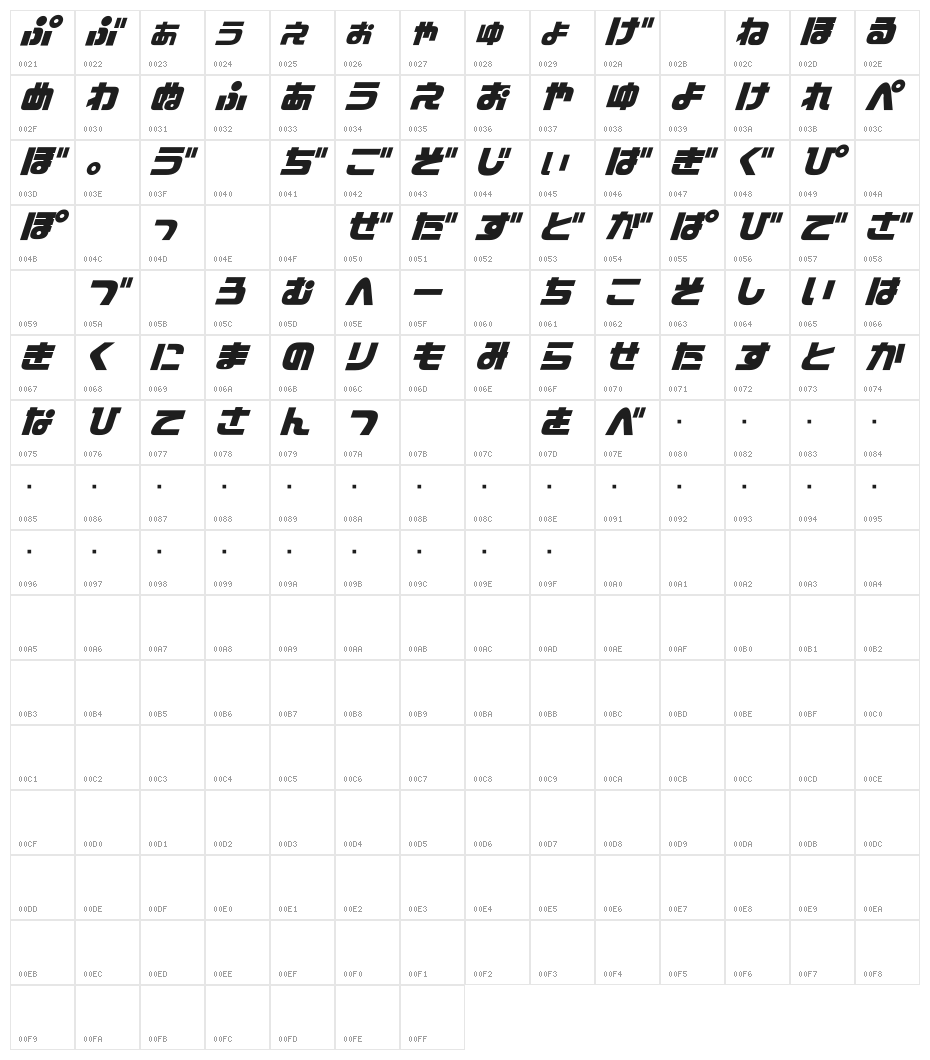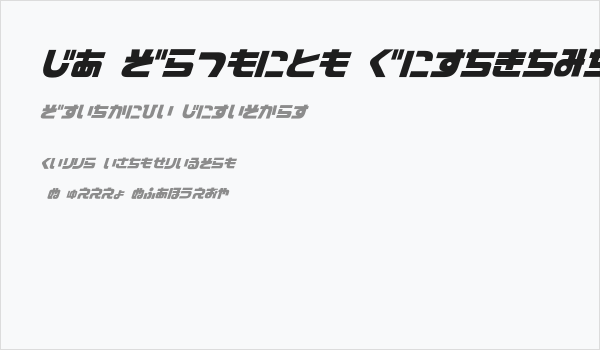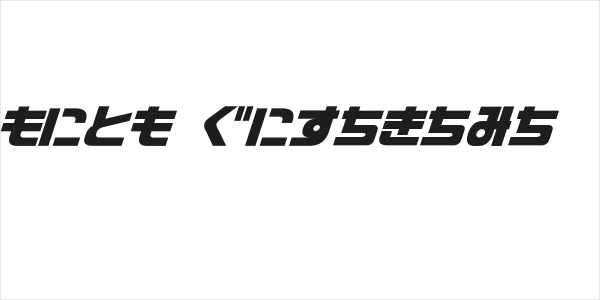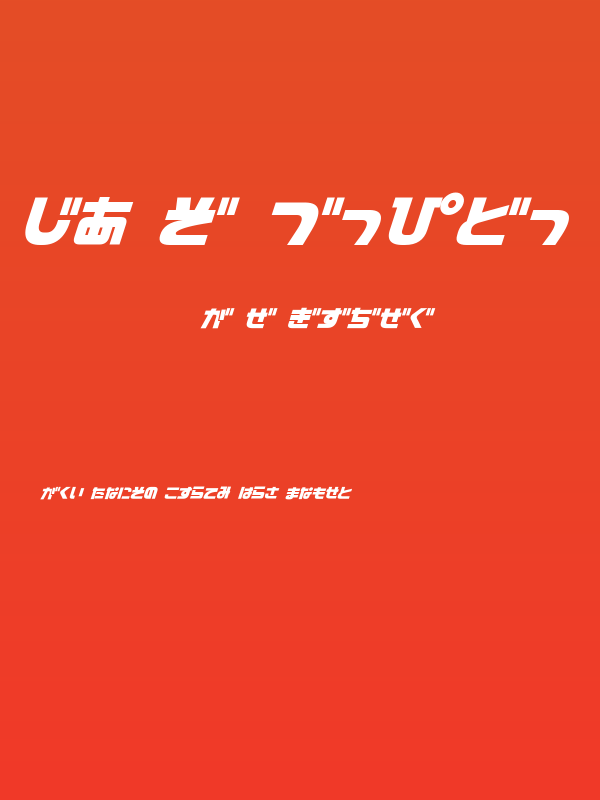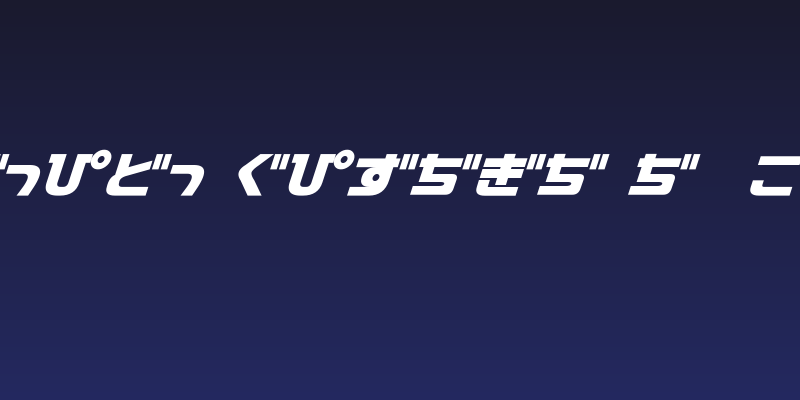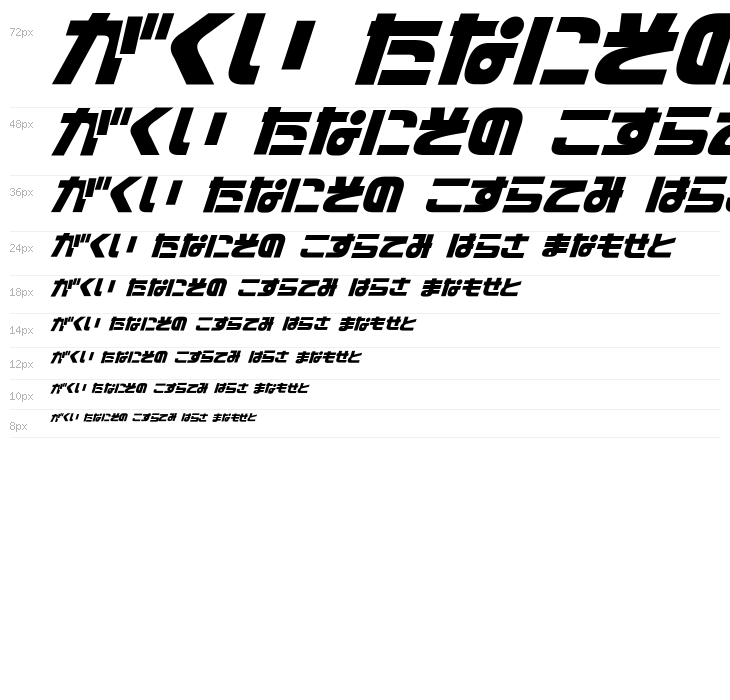
D3 Cozmism Hiragana Oblique Font
D3 Cozmism Hiragana Oblique Description
This font features a bold and dynamic style with a distinct oblique slant, giving it a sense of motion and energy. The characters are wide and have a strong presence, making them highly legible and impactful. The strokes are thick and consistent, providing a uniform appearance across all characters. This font's design is modern and sleek, with a touch of futuristic flair. The spacing between characters is tight, which enhances the cohesive look of the text. Overall, this font is ideal for projects that require a bold and eye-catching aesthetic.
| Proposed Projects | Ideal for branding, advertising, posters, and any project needing a bold, modern look. |